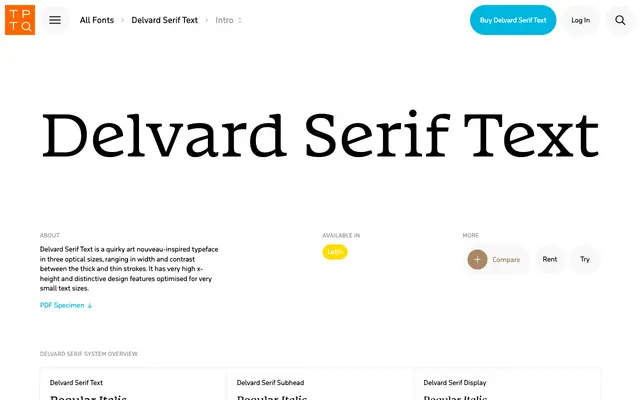
Delvard Serif Text specimen from Typotheque
A three-cut serif system from Typotheque, offering dedicated Text, Subhead and Display optical sizes across four weights with matching italics.
Delvard Serif is structured around three optically-tuned subfamilies, each calibrated for a different size range, with the Text cut prioritising readability in body copy. Four weights run from Regular to Bold in each subfamily, all with italics, and a variable font version of the Text cut is also available. The system suits editorial and long-form publishing work where consistent hierarchy across optical sizes matters.
A multi-optical-size serif system with distinct Text, Subhead and Display cuts, suggesting a contemporary approach to optical sizing in the tradition of editorial and publishing serifs.